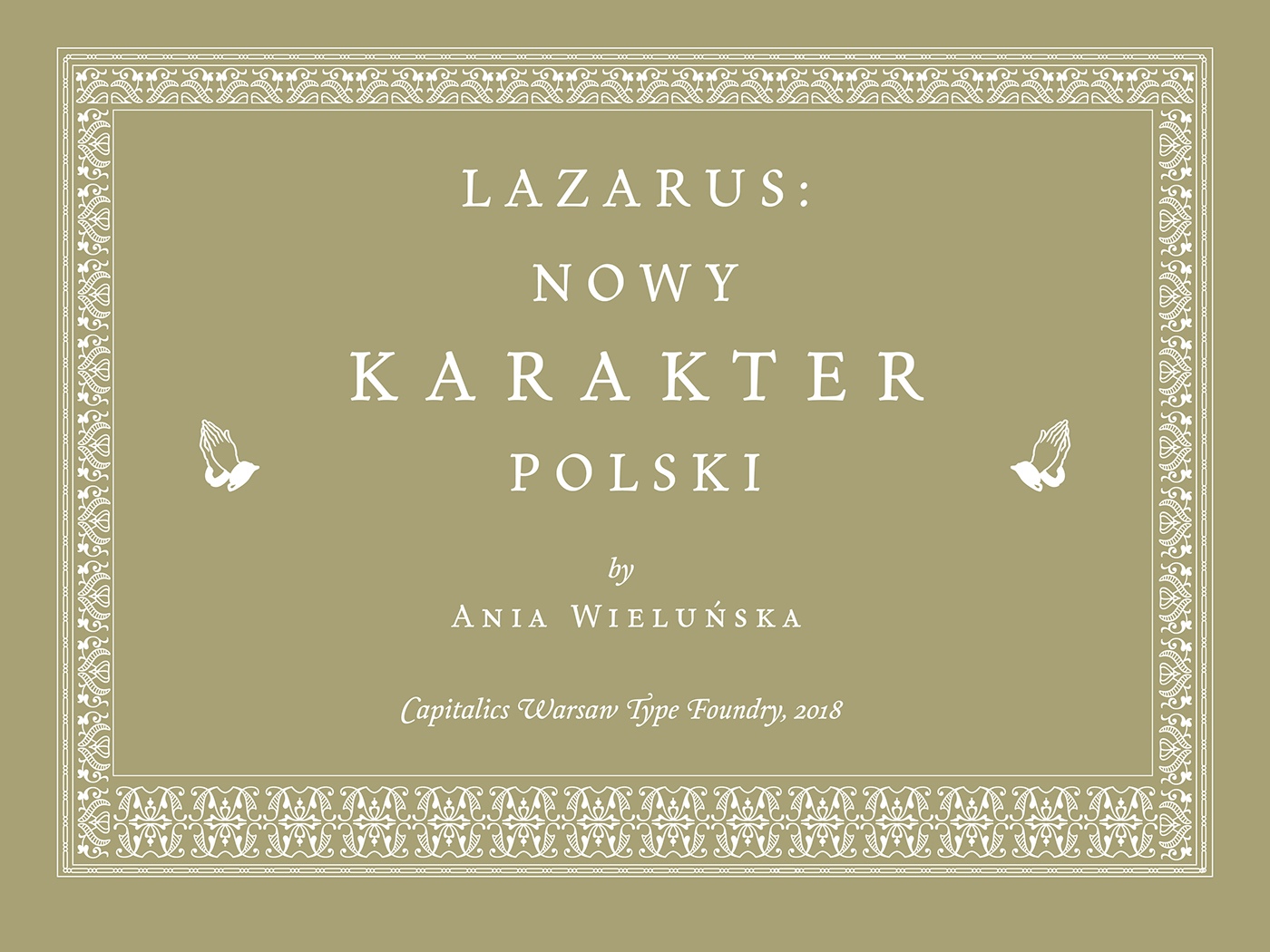
Lazarus Font
Lazarus Font is perfect for resurrection-themed campaigns, spiritual revival materials, transformation coaching branding, renewal service communications, comeback story publications, recovery program materials, phoenix company rebranding, second-chance nonprofit organizations, revitalization project signage, and inspirational comeback narratives.
What makes Lazarus Font so exciting is its powerful embodiment of transformation and spiritual renewal that captures the profound journey from despair to hope through deeply meaningful typographic expression. This inspirationally crafted typeface features rising letterforms with resurrection-inspired proportions and transformative character variations that immediately convey rebirth, renewal, and the miraculous power of second chances. The font's redemptive construction and spiritually uplifting aesthetic create an instant sense of hope and divine possibility, making it ideal for projects that need to communicate spiritual transformation, personal renewal, and the life-changing power of faith and perseverance to audiences seeking meaningful spiritual connection and genuine life transformation experiences.
The Lazarus Font family typically includes multiple transformative weights and spiritual styles, often featuring light, regular, and bold variations along with uplifting italic versions. Renewal-themed font collections frequently offer additional inspirational elements such as cross symbols, resurrection ornaments, and spiritual flourishes that enhance the redemptive aesthetic and provide designers with comprehensive tools for creating genuinely transformative and spiritually meaningful communications.
The transformative nature of Lazarus Font makes it particularly effective for targeting demographics that have experienced significant life challenges and are seeking genuine spiritual renewal and personal transformation. Faith-based marketers and transformation coaches will find this font especially valuable for materials that must establish immediate spiritual credibility and connect with audiences seeking authentic renewal experiences and meaningful life change.
What sets Lazarus Font apart is its ability to convey profound spiritual transformation while maintaining the strength necessary for effective inspirational communication. This redemptive characteristic makes it suitable for both gentle spiritual applications and powerful testimony contexts where projecting divine hope and maintaining authentic spiritual authority must work together harmoniously.
Professional designers recognize that Lazarus Font brings invaluable spiritual credibility to projects across industries including faith-based services, recovery programs, inspirational publishing, and transformation coaching. Its resurrection character and renewal appeal make it essential for organizations whose mission centers on helping others experience genuine spiritual transformation and discover the profound hope that comes through divine renewal.
The carefully crafted spiritual authenticity of Lazarus Font ensures consistent transformative messaging across all renewal-focused communication applications while honoring the sacred nature of spiritual resurrection and personal transformation.